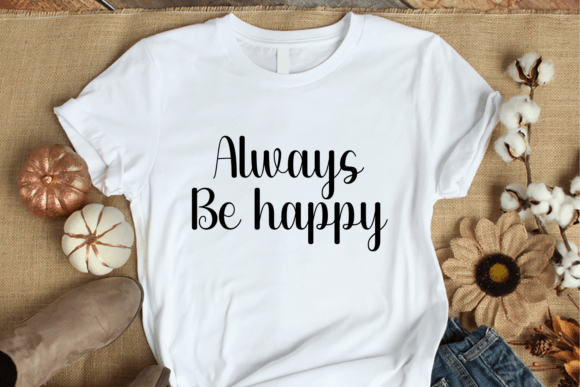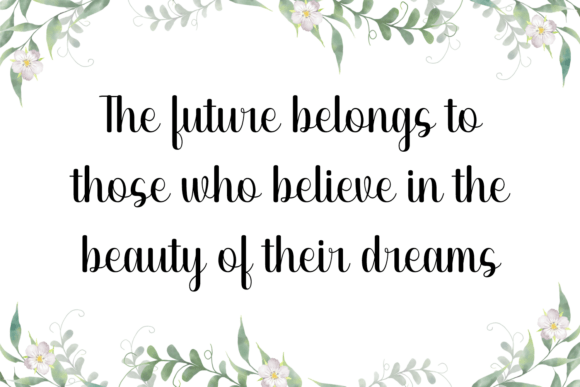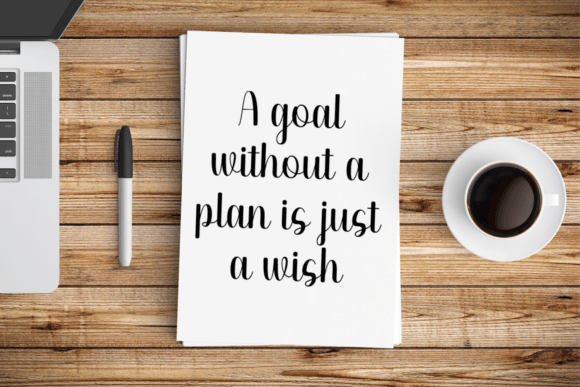
Introducing Chalime Font: The Perfect Blend of Modern Simplicity and Elegant Curves
In the world of typography, fonts play a crucial role in conveying the tone and personality of a design. For designers and crafters looking for a font that exudes warmth, elegance, and a touch of modern simplicity, Chalime Font is an excellent choice. This charming handwritten script font has been designed to blend the best of both worlds, offering a unique and captivating visual experience.
The Characteristics of Chalime Font
Chalime Font boasts a range of characteristics that make it stand out from other fonts. Its graceful letterforms are carefully crafted to create a sense of fluidity and movement, while its subtle swashes add a touch of elegance and sophistication. The flowing connections between letters create a sense of continuity, making Chalime Font perfect for designs that require a personal and friendly touch.
Chalime Font is an incredibly versatile font that can be used for a wide range of creative projects. Its natural, hand-drawn feel adds a layer of authenticity and friendliness to designs, making it perfect for:
- Wedding Invitations: Add a touch of romance and elegance to your wedding invitations with Chalime Font.
- Personal Branding: Create a unique and memorable brand identity with Chalime Font’s charming and sophisticated letterforms.
- Greeting Cards: Make your greeting cards stand out with Chalime Font’s flowing connections and subtle swashes.
- Creative Projects: From stationery to packaging, Chalime Font is the perfect choice for any creative project that requires a personal touch.
The Benefits of Using Chalime Font
So, why choose Chalime Font for your next design project? Here are just a few benefits of using this charming handwritten script font:
- Warmth and Personality: Chalime Font’s natural, hand-drawn feel adds a layer of warmth and personality to designs.
- Professional and Stylish: Despite its hand-drawn feel, Chalime Font has a refined execution that ensures a professional and stylish look.
- Elegant and Sophisticated: Chalime Font’s subtle swashes and flowing connections create an elegant and sophisticated visual experience.
- Versatile: Chalime Font can be used for a wide range of creative projects, from wedding invitations to personal branding.
Tips for Using Chalime Font
To get the most out of Chalime Font, here are a few tips to keep in mind:
- Use it as a headline font: Chalime Font’s elegant letterforms make it perfect for use as a headline font.
- Pair it with a sans-serif font: Pair Chalime Font with a sans-serif font for a stylish and modern look.
- Experiment with swashes: Chalime Font’s subtle swashes can add a touch of elegance to your designs.
- Use it in combination with images: Chalime Font’s hand-drawn feel makes it perfect for use in combination with images and illustrations.
In conclusion, Chalime Font is a charming handwritten script font that offers the perfect blend of modern simplicity and elegant curves. Its graceful letterforms, subtle swashes, and flowing connections create a sense of warmth and personality, making it perfect for a wide range of creative projects. Whether you’re a designer or crafter looking for a font that exudes elegance and sophistication, Chalime Font is an excellent choice.